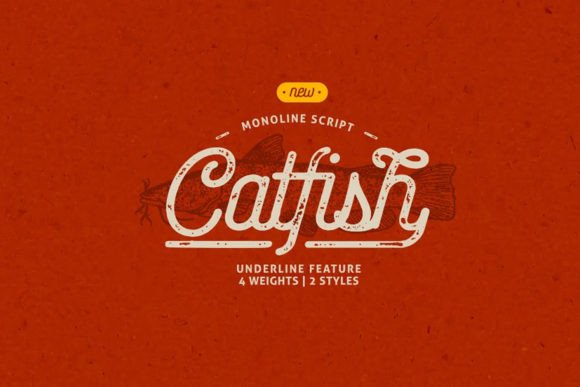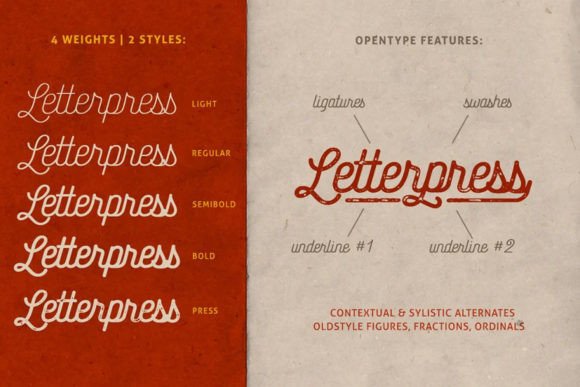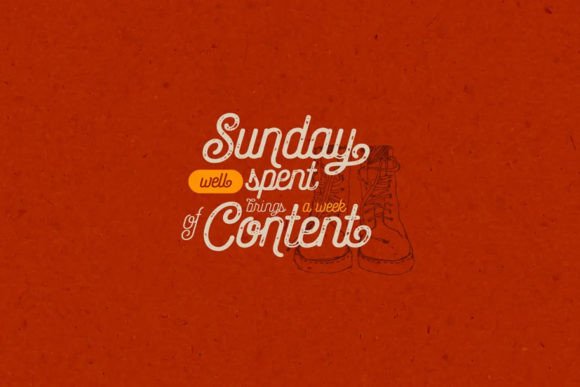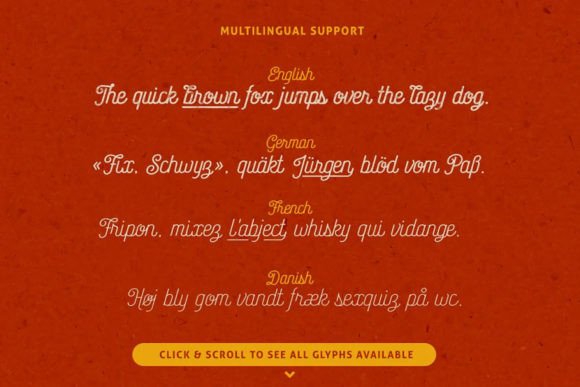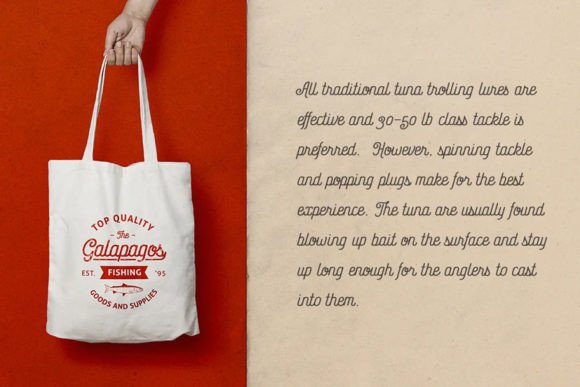
Catfish Font
A Stylish and Elegant Monoline Script
Catfish is a modern monoline script font crafted to add elegance and style to any project. Each letter flows smoothly, with clean lines and consistent stroke widths that feel refined and approachable. The balanced shapes make Catfish perfect for both casual and formal designs.
Whether you’re working on personal crafts or professional branding, Catfish gives your text a polished, graceful look that feels timeless.
Catfish is a versatile font that adapts beautifully to a wide variety of uses. It’s ideal for greeting cards, invitations, and thank-you notes where you want your words to feel warm and personal.
Use Catfish for branding materials, logos, and business cards. The clean monoline style creates a professional yet friendly impression that helps your brand feel approachable.
This font shines on product packaging, boutique labels, and handmade goods. Its elegant letterforms help your products stand out with a touch of sophistication.
Catfish is also great for social media graphics, presentations, and blog headers. The smooth curves and modern look make your content feel fresh and engaging.
The font includes uppercase and lowercase letters, numbers, and punctuation marks. Ligatures are included so your text flows naturally and looks cohesive.
Clear, Smooth, and Easy to Read
Even with its stylish monoline design, Catfish remains clear and legible in any size. The balanced spacing between letters keeps your text neat and professional, whether you use it for big headlines or small captions.
Many designers pair Catfish with a clean sans-serif font to create visual contrast. Use Catfish for titles and the sans-serif for body text. This combination guides the reader’s eye and keeps layouts clean and modern.
To highlight Catfish’s elegant style, use neutral backgrounds and soft color palettes. Shades like cream, light gray, and blush help the smooth lines stand out without distractions.
When designing wedding materials or upscale branding, consider adding subtle watercolor elements or delicate icons to complement the monoline script. For packaging and social media, keep your layouts minimal so the font stays the main focus.
Think about the mood you want to create. Catfish is perfect for designs that should feel sophisticated, modern, and inviting.
Catfish is more than just a monoline script font. It’s a creative tool that transforms everyday text into something special. Its clean curves and balanced shapes bring a touch of elegance to any project.
Adding Catfish to your font collection gives you a reliable option for all kinds of creative work. From branding and packaging to social media and personal crafts, this font adapts effortlessly to your ideas.